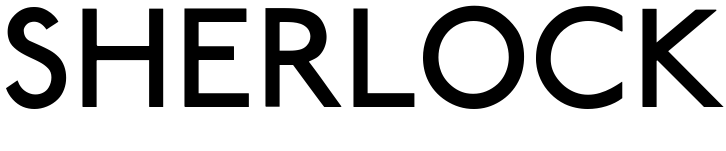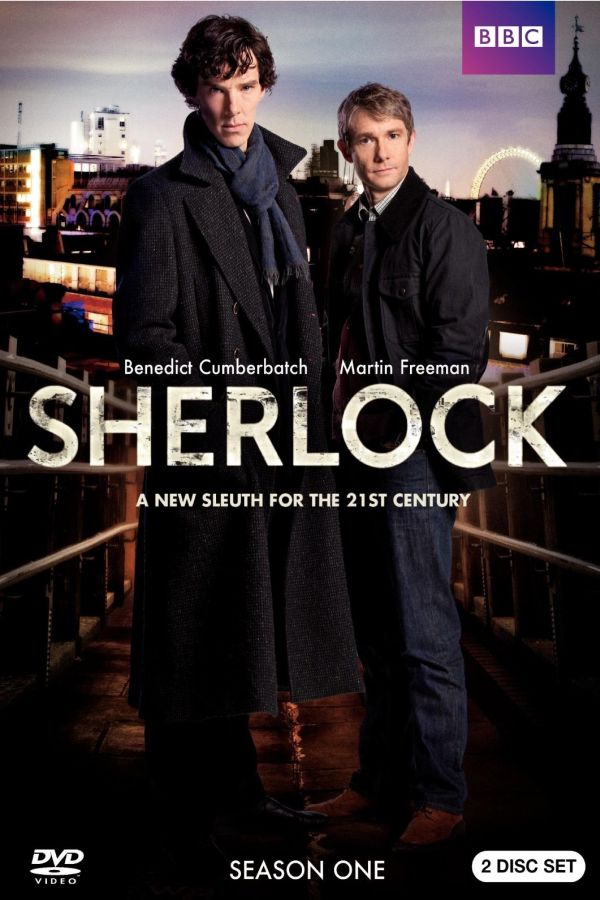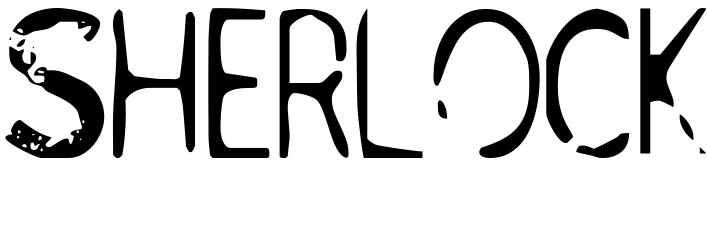
Sherlock Font
CrimeSherlock is a British crime drama television series that follows the investigations of detective Sherlock Holmes, played by Benedict Cumberbatch, and his friend and colleague Dr. John Watson, played by Martin Freeman.
The TV series title features "SHERLOCK" text in all capital letters in a distressed sans serif style, which is likely based on the P22 Johnston Underground font. Additionally, there is a free font named "I Am Sherlocked" that mimics the lettering style of the logo and can be used to recreate the logo.